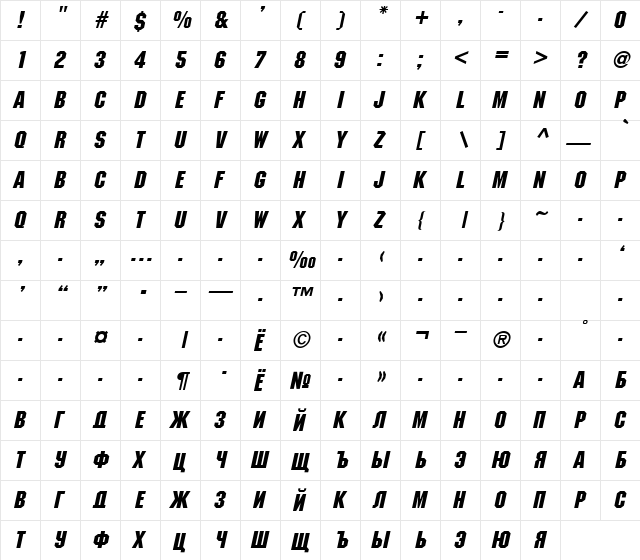
EngineCyr Bold Italic Font Preview
Design Context for EngineCyr Typeface
EngineCyr takes a measured approach to typography — its balanced proportions and neutral character make it a reliable workhorse for both digital and print work. The slanted form adds forward momentum and visual energy. The heavy weight commands attention and anchors typographic hierarchies.
Pro Tip: Try EngineCyr for annotation and caption copy alongside an upright companion — the contrast in angle creates a dynamic but ordered typographic system.